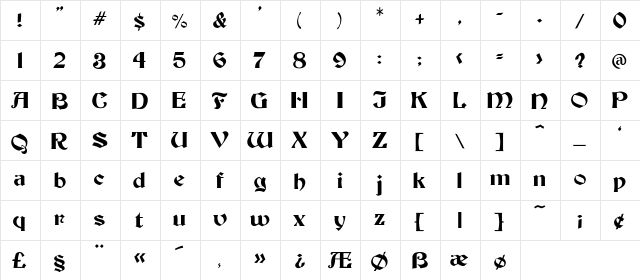
Nottinghamm Regular
Design Context for Nottinghamm Typeface
Nottinghamm is a composed and adaptable typeface that performs quietly and consistently across a wide range of design contexts.